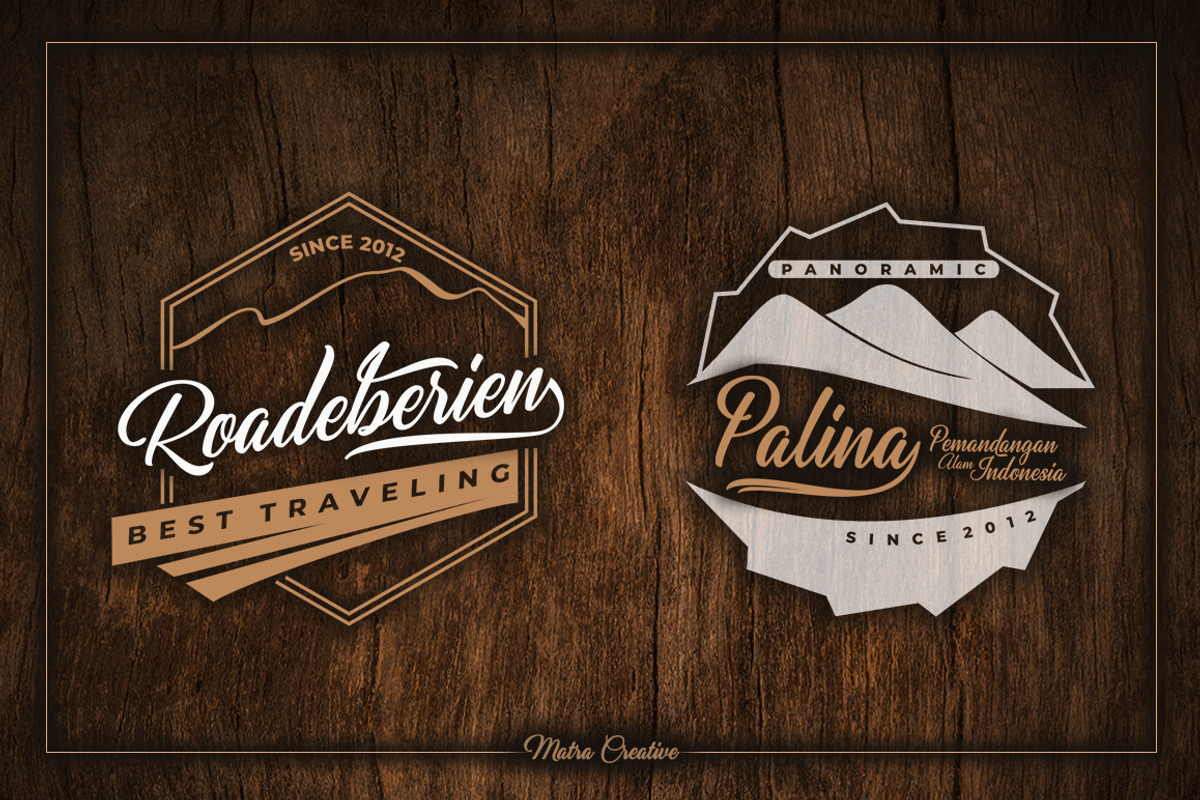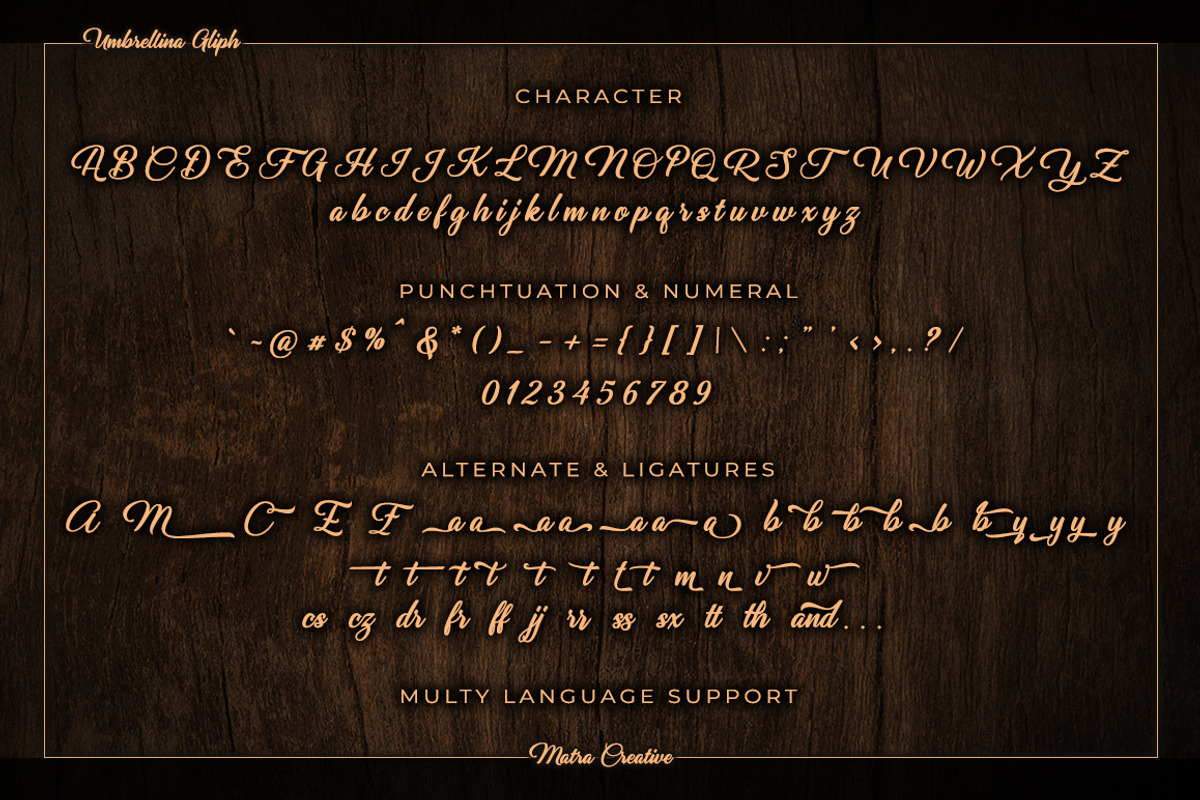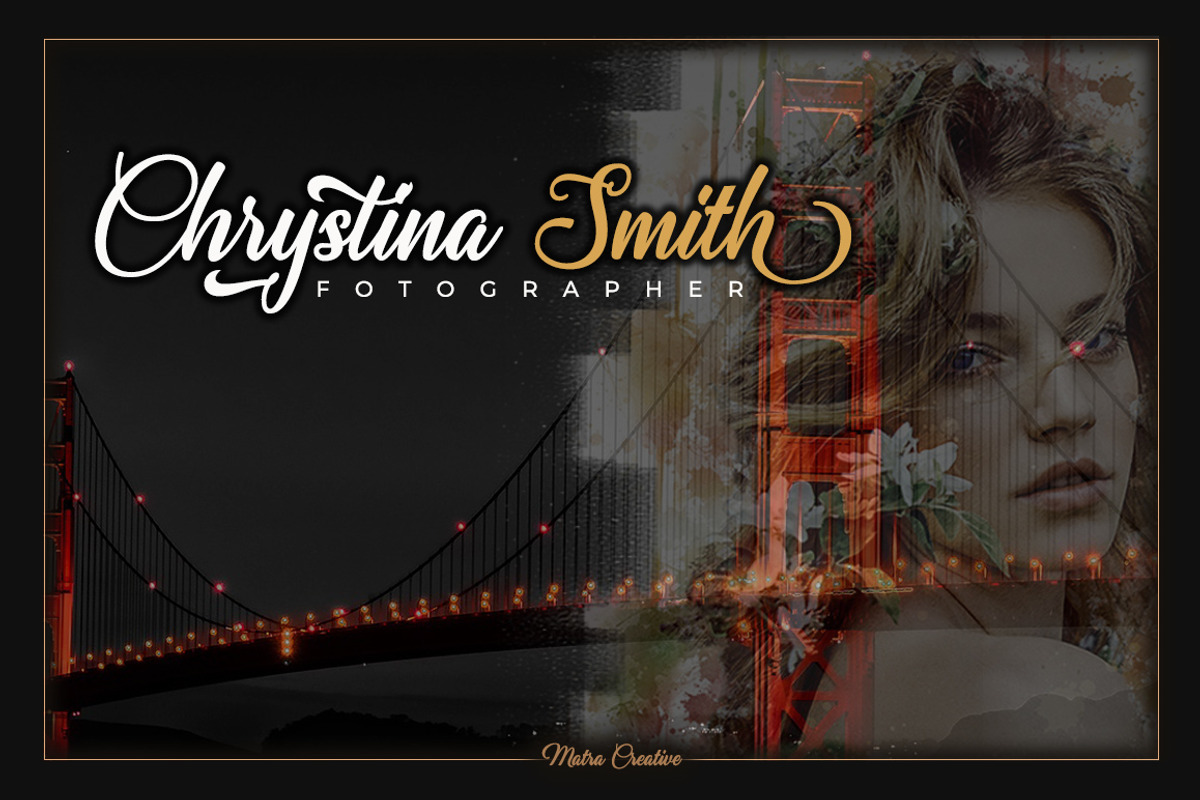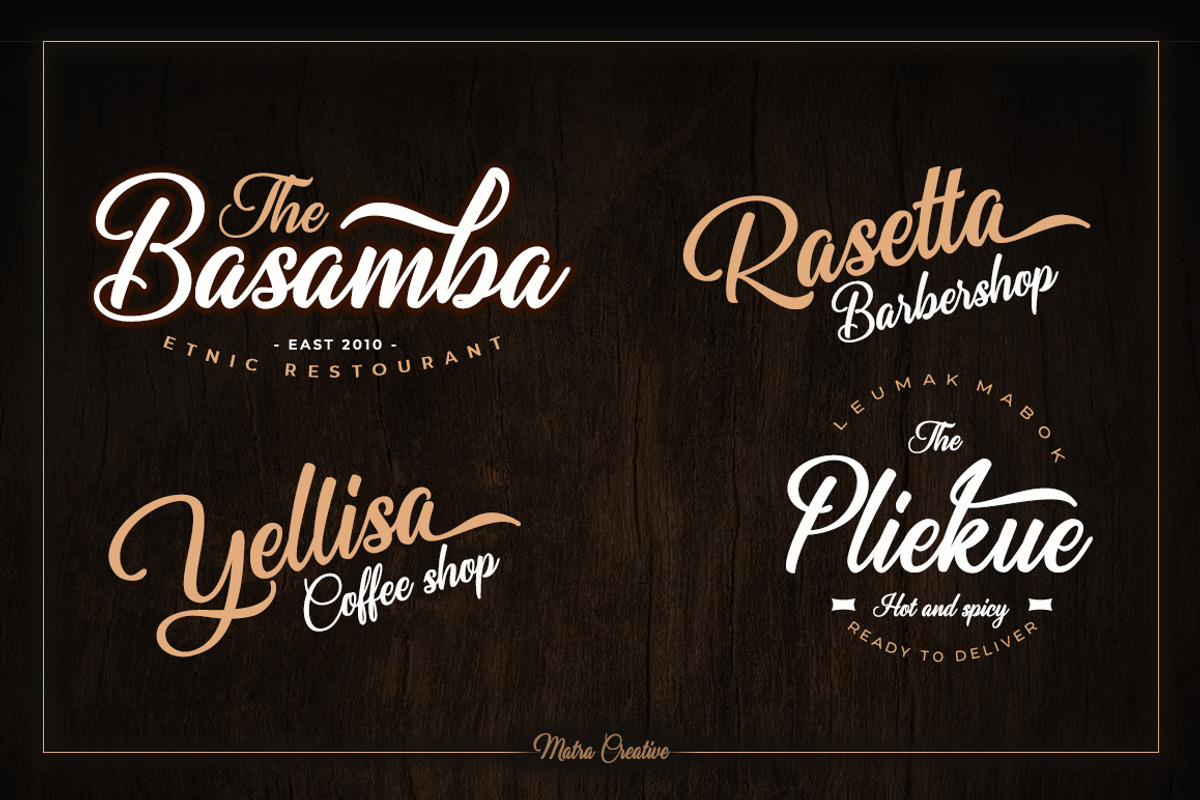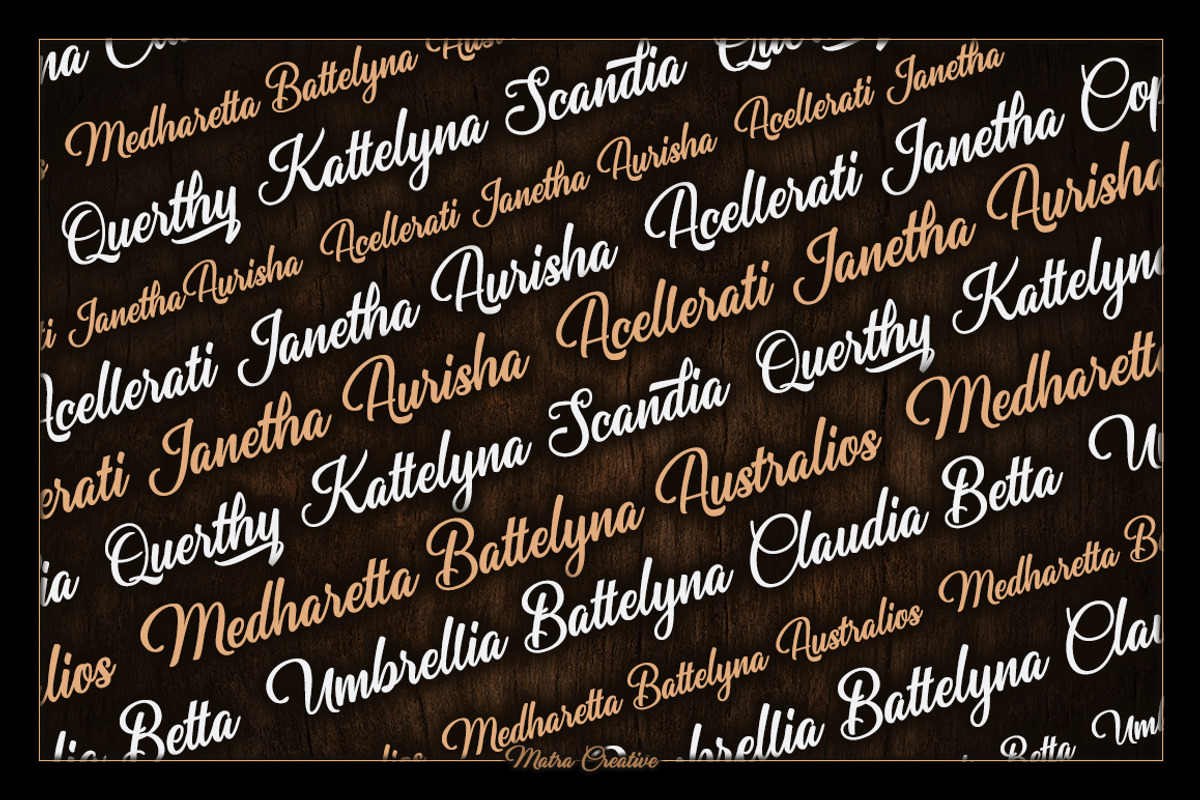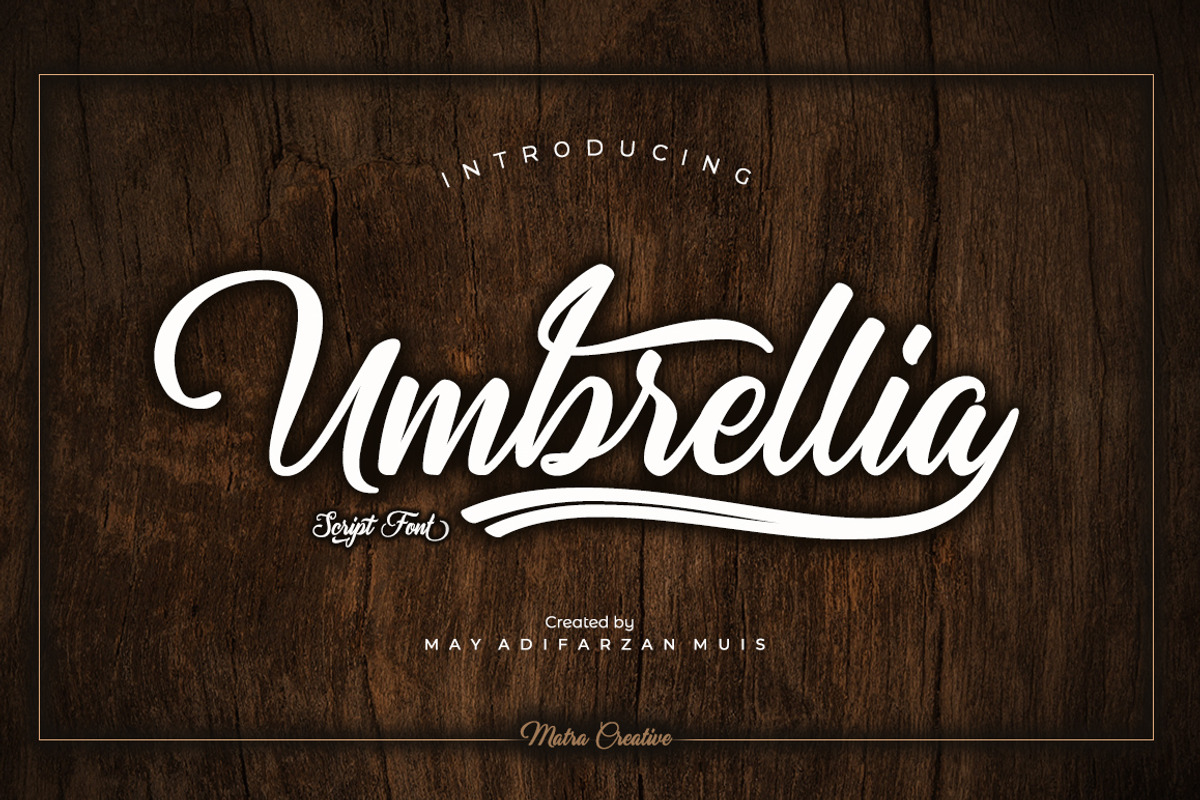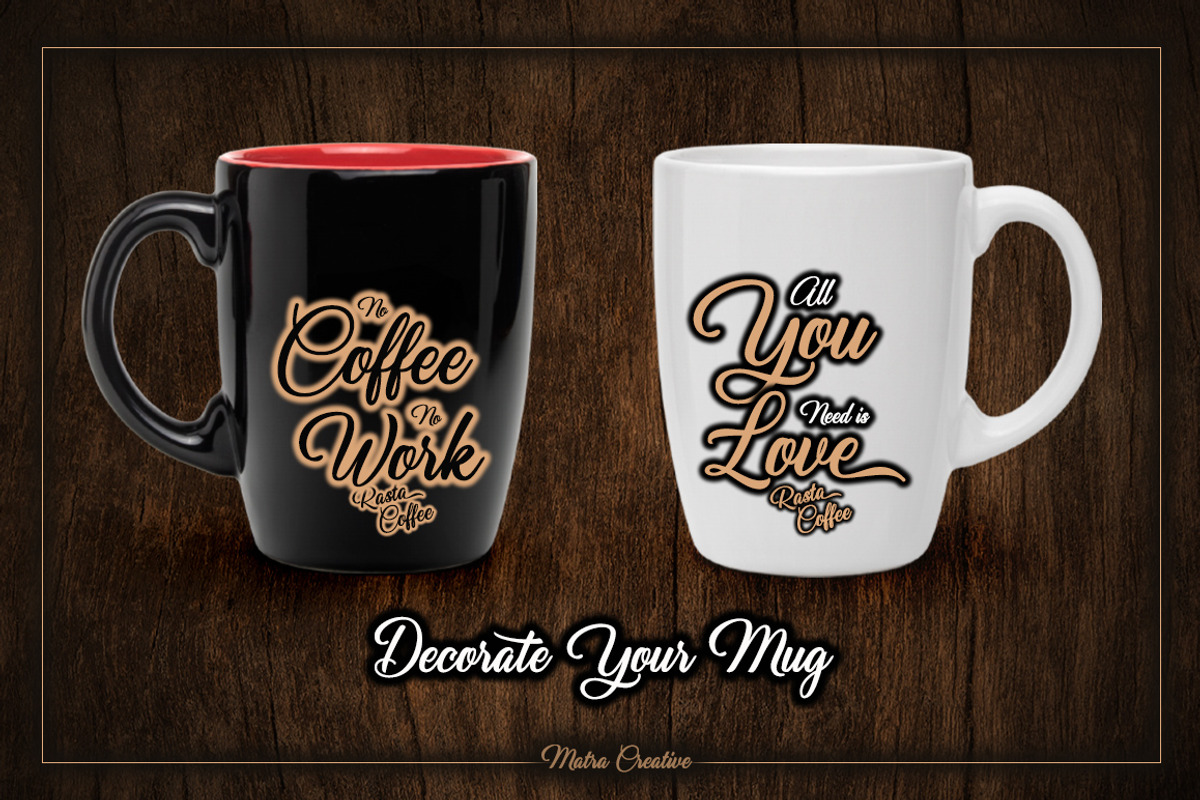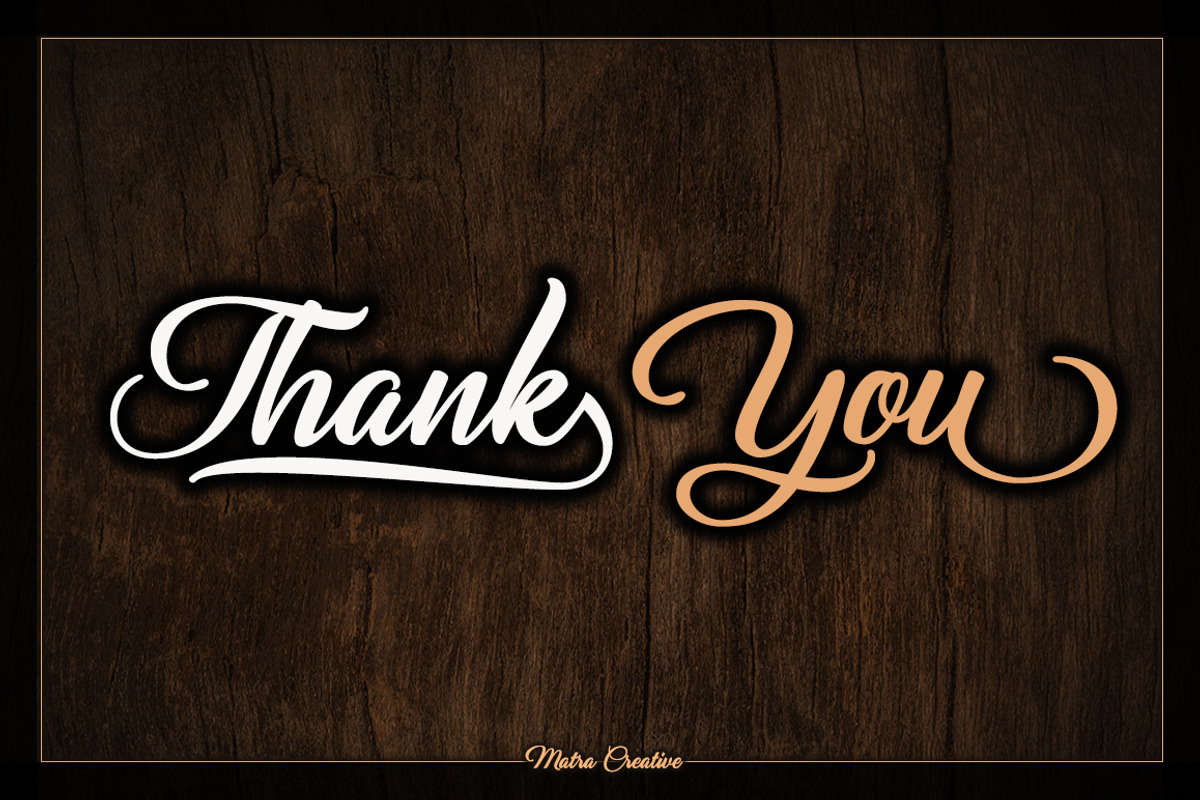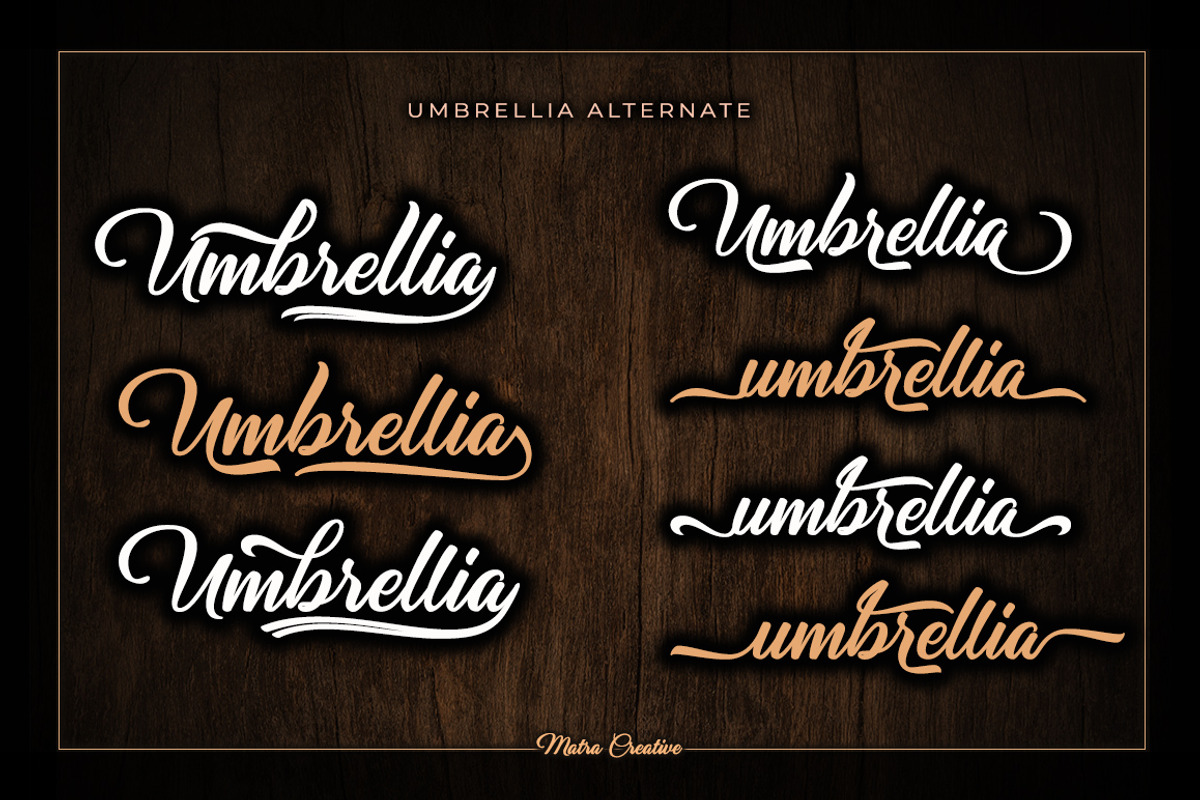
Umbrellia
The Umbrellia is an amazing calligraphy script. It includes beautiful alternate characters which were designed to bring elegance and style.
It’s classic style is perfect for invitations, labels, menu’s, logos, make-up, fashion, romantic designs, and much more!